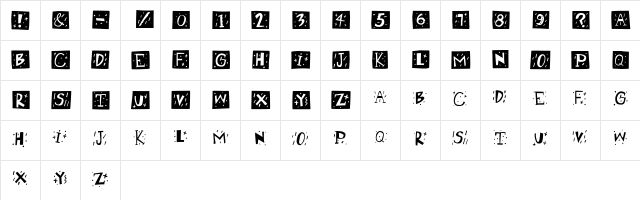
RetroCapsWB Regular Free Font
RetroCapsWB Regular
Foundry: Character
Designer: Character
Design Context for RetroCapsWB
RetroCapsWB wears its vintage influences proudly, with letterforms that recall mid-century signage, classic packaging, and nostalgia-driven design.
Font Pairing: Combine RetroCapsWB with a simple slab or neutral sans - period-accurate companions reinforce the vintage feel without competing for attention.
Pro Tip: Lean into RetroCapsWB's period character by pairing it with aged paper textures, muted colour palettes, and vintage illustration styles.